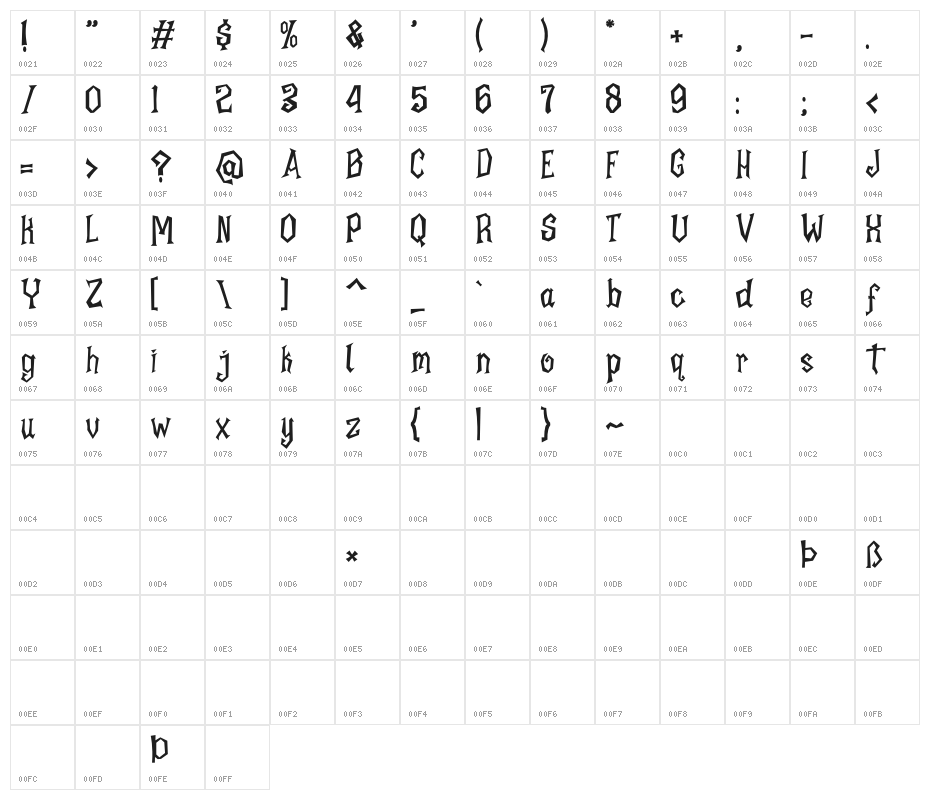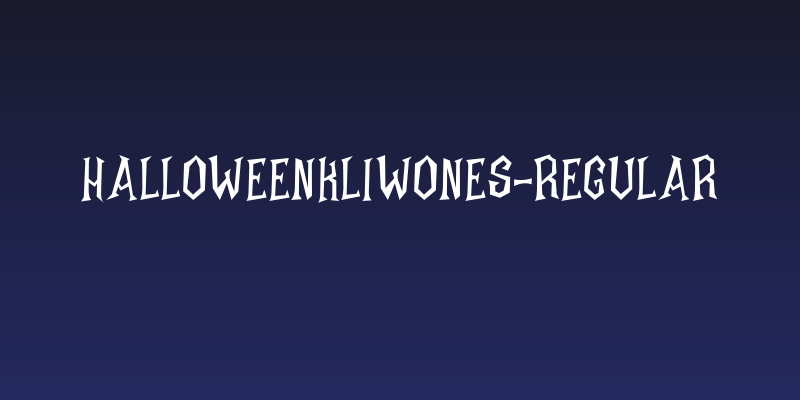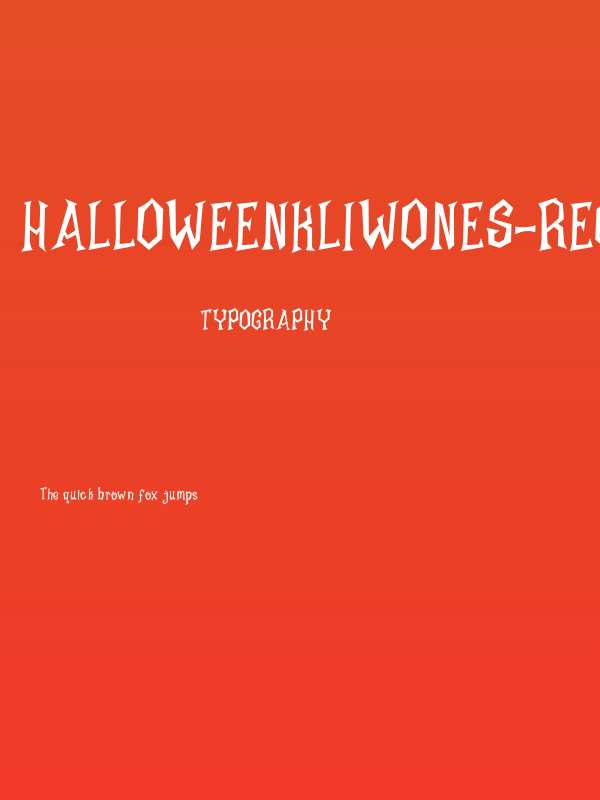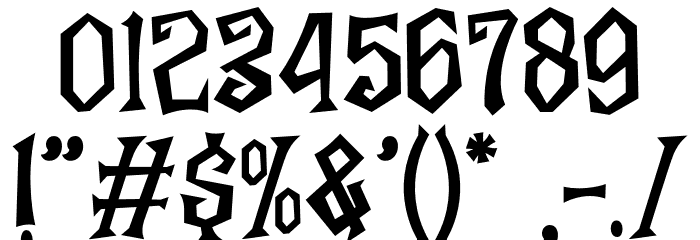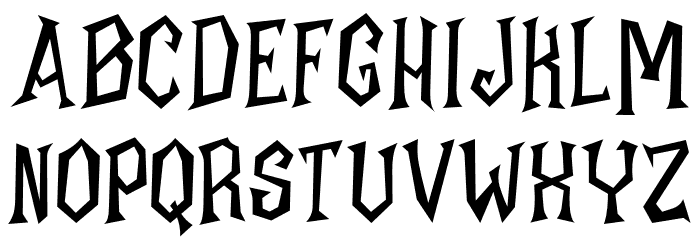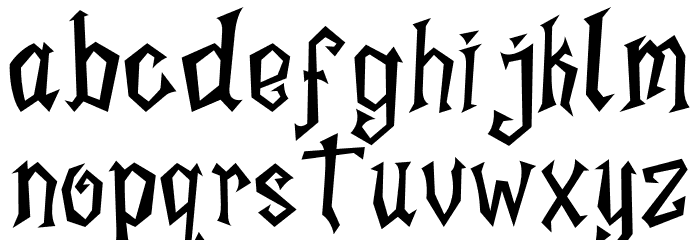
HalloweenKliwones-Regular Font
This font features a bold and jagged design, reminiscent of classic horror themes. The characters have sharp, angular edges and an uneven baseline, giving it a spooky and unsettling appearance. The uppercase letters are particularly striking, with exaggerated serifs and a slightly distorted form. The lowercase letters maintain the same eerie style, ensuring consistency throughout. Numbers and special characters are equally stylized, adding to the font's cohesive and thematic look. This font is perfect for capturing the essence of Halloween or any project requiring a touch of the macabre.
| Proposed Projects | Ideal for Halloween-themed posters, horror movie titles, haunted house flyers, and spooky event invitations. |